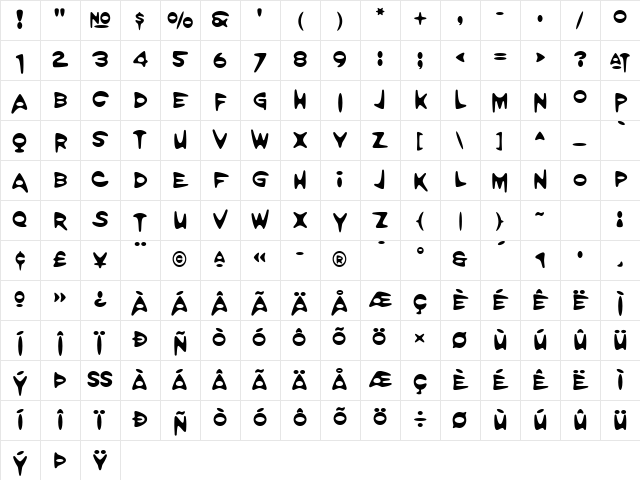
Amorpheus Regular
Foundry: Rian Hughes . A Device font
Design Context for Amorpheus
Amorpheus is a composed and adaptable typeface that performs quietly and consistently across a wide range of design contexts.
Who designed the Amorpheus Regular font?
This font was published by Rian Hughes . A Device font. Check the technical specs section for copyright and designer details.